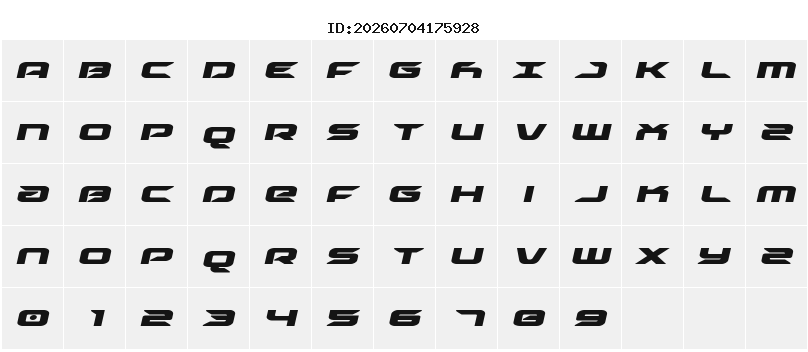
• Font Name: Drive Bold Italic
• Full Font Name: Drive Bold Italic
About Drive Bold Italic.ttf
Drive Bold Italic.ttf is a modern, elegant sans-serif font designed for ultimate readability and visual harmony. Perfect for branding, headlines, web design, and print materials.